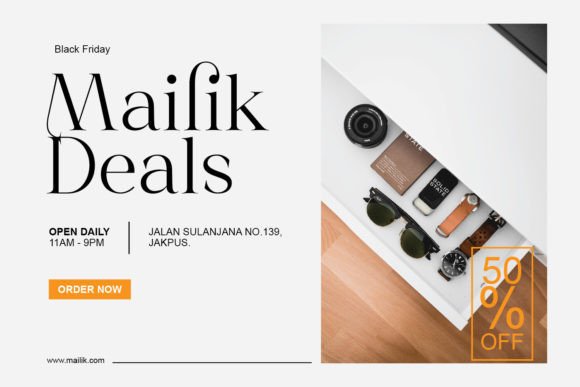
Discover the Elegance of Angelle Font: A Serif Type for Luxurious Designs
When it comes to typography, the right font can elevate your design and convey the tone and personality of your brand. In the world of serif fonts, Angelle Font stands out for its elegant, delicate, and luxurious character. This beautiful font is a versatile tool that can be used for a wide range of design projects, from wedding invitations to presentations, websites, magazines, and more.
What is Angelle Font?
Angelle Font is a serif type that offers two main options: Regular and Bold. This font is designed to bring a touch of sophistication and refinement to your designs. With its classic serif lines and elegant curves, Angelle Font is perfect for creating luxurious and high-end designs.
Features of Angelle Font
One of the standout features of Angelle Font is its Ligature and Stylistic Alternates features. These features allow you to create unique and creative typography that sets your design apart. The Ligature feature allows two or more letters to be combined into a single glyph, creating a beautiful and harmonious effect. The Stylistic Alternates feature provides alternative glyphs for certain letters, allowing you to add more variety and personality to your text.
Key Features:
- Serif type with Regular and Bold options
- Ligature feature for harmonious typography
- Stylistic Alternates feature for added variety
- Elegant, delicate, and luxurious character
Uses of Angelle Font
Angelle Font is a versatile font that can be used for a wide range of design projects. Here are some ideas for using this beautiful font:
Design Ideas:
- Wedding invitations and stationery
- Presentations and business reports
- Websites and blogs
- Magazines and newspapers
- Covers and book jackets
- Advertising and marketing materials
Why Choose Angelle Font?
There are many fonts available, but Angelle Font stands out for its unique combination of elegance, delicacy, and luxury. Here are some reasons why you might choose Angelle Font for your next design project:
Why Choose Angelle Font:
- Unique and elegant design
- Versatile and adaptable
- Ligature and Stylistic Alternates features
- Luxurious and high-end feel
- Easy to read and use
Tips for Using Angelle Font
To get the most out of Angelle Font, here are some tips for using it effectively:
Tips:
- Use Angelle Font for headlines and titles to create a luxurious and elegant effect
- Pair Angelle Font with a sans-serif font for body text to create contrast and visual interest
- Experiment with Ligature and Stylistic Alternates features to add personality and creativity to your typography
- Use Angelle Font consistently throughout your design to create a cohesive and professional look
Angelle Font is a beautiful and elegant serif type that offers a luxurious and high-end feel. With its Ligature and Stylistic Alternates features, this font provides a range of creative possibilities for designers. Whether you’re creating wedding invitations, presentations, websites, or magazines, Angelle Font is a versatile and adaptable choice that can help you achieve your design goals.
Final Thoughts:
Angelle Font is a valuable addition to any designer’s toolkit. Its unique combination of elegance, delicacy, and luxury makes it a standout choice for a wide range of design projects. With its Ligature and Stylistic Alternates features, Angelle Font offers a range of creative possibilities that can help you create beautiful and effective typography.